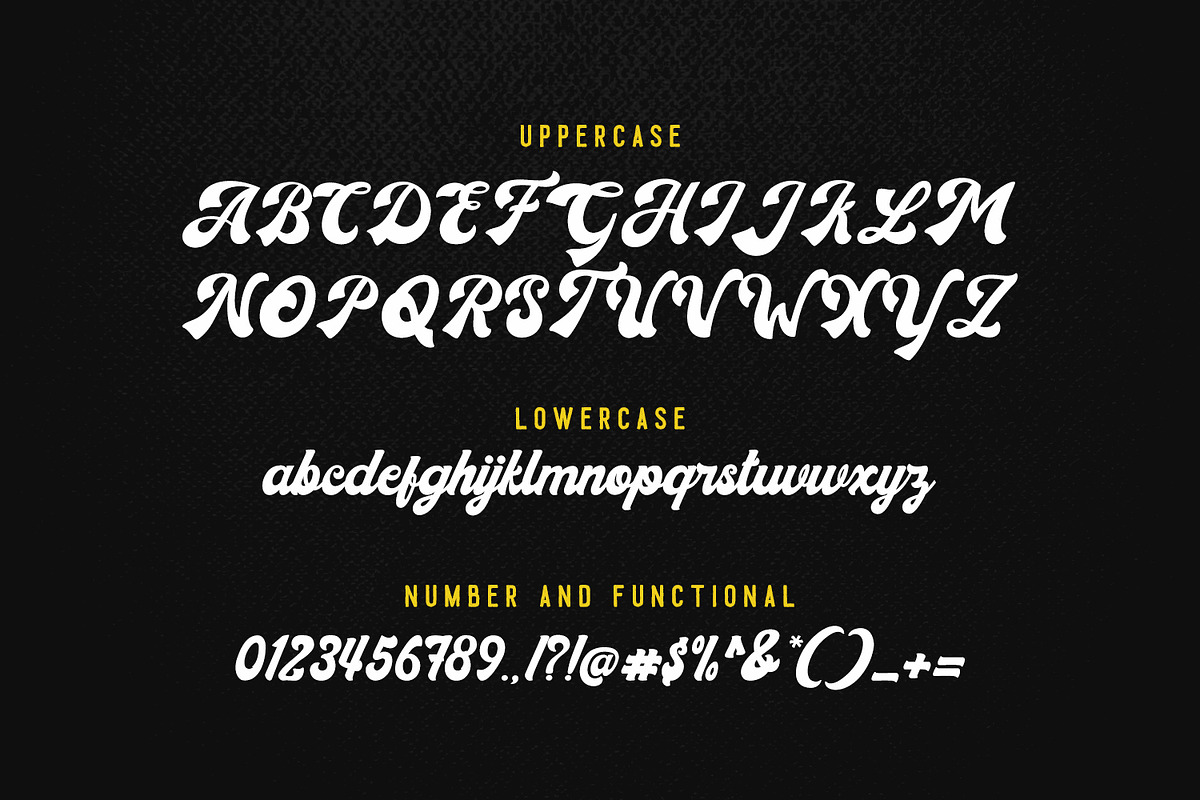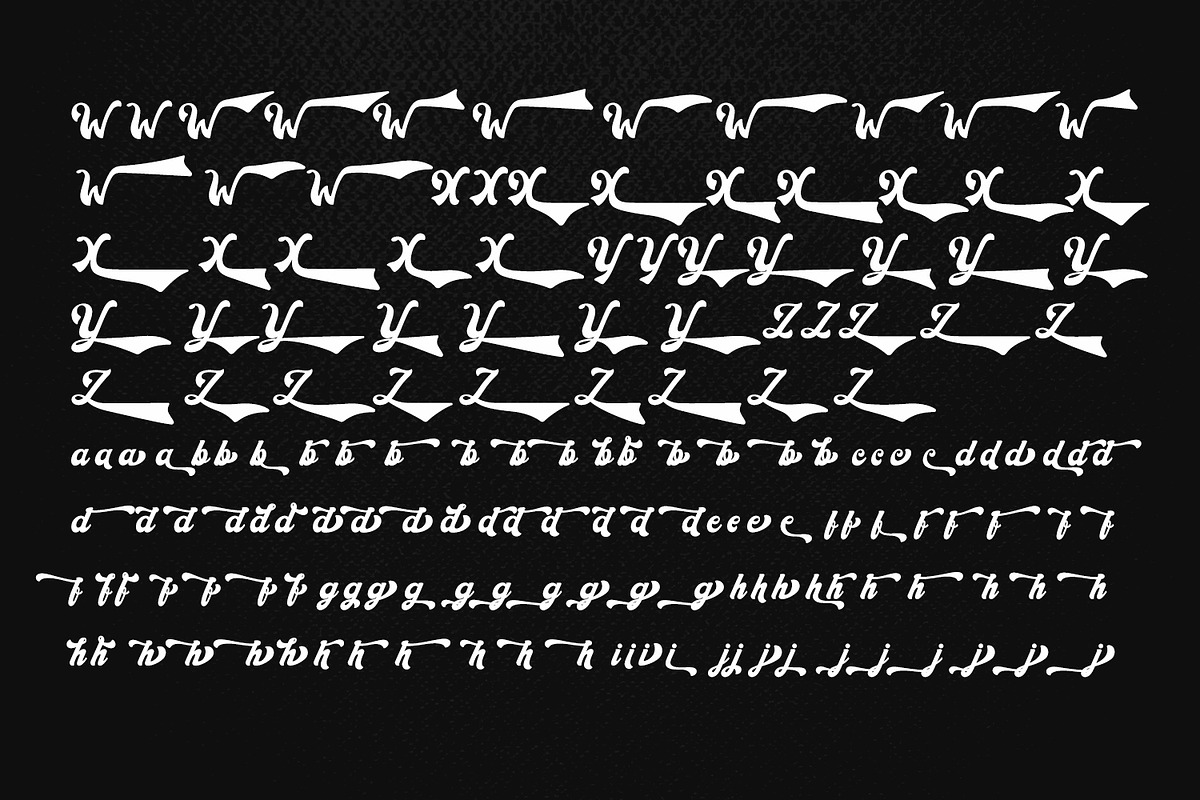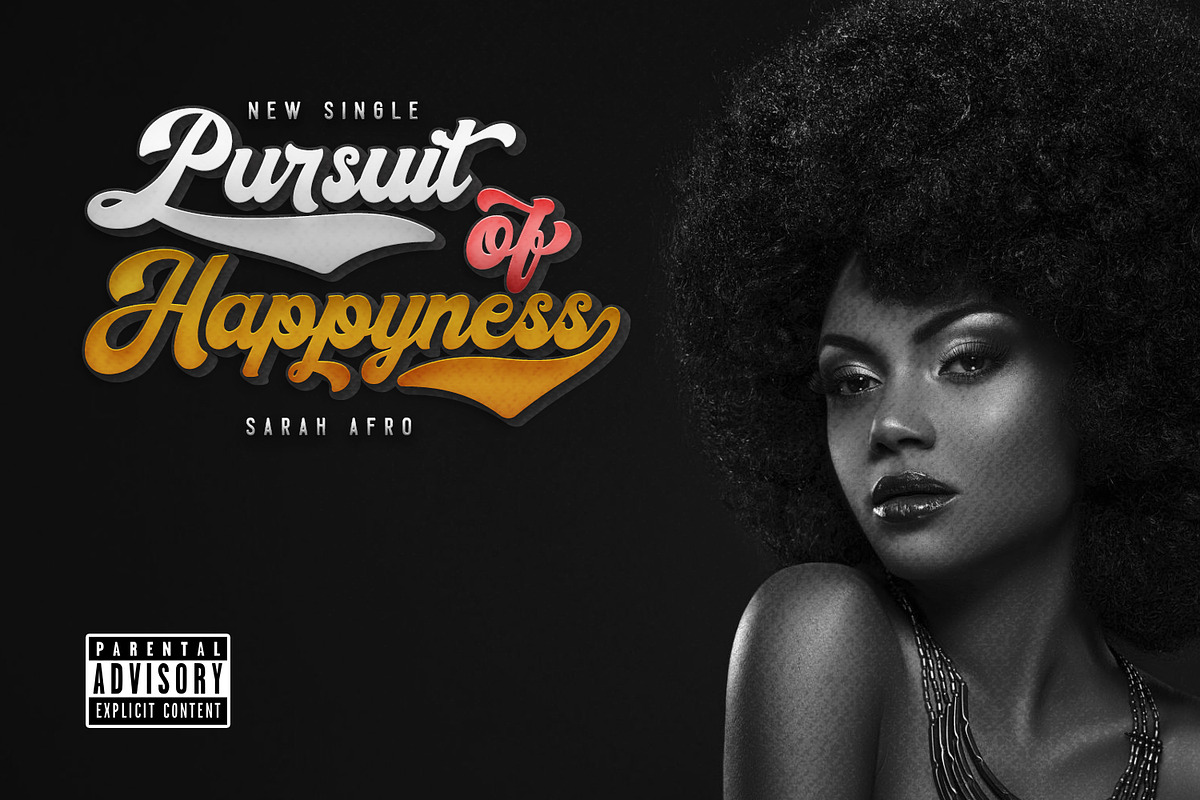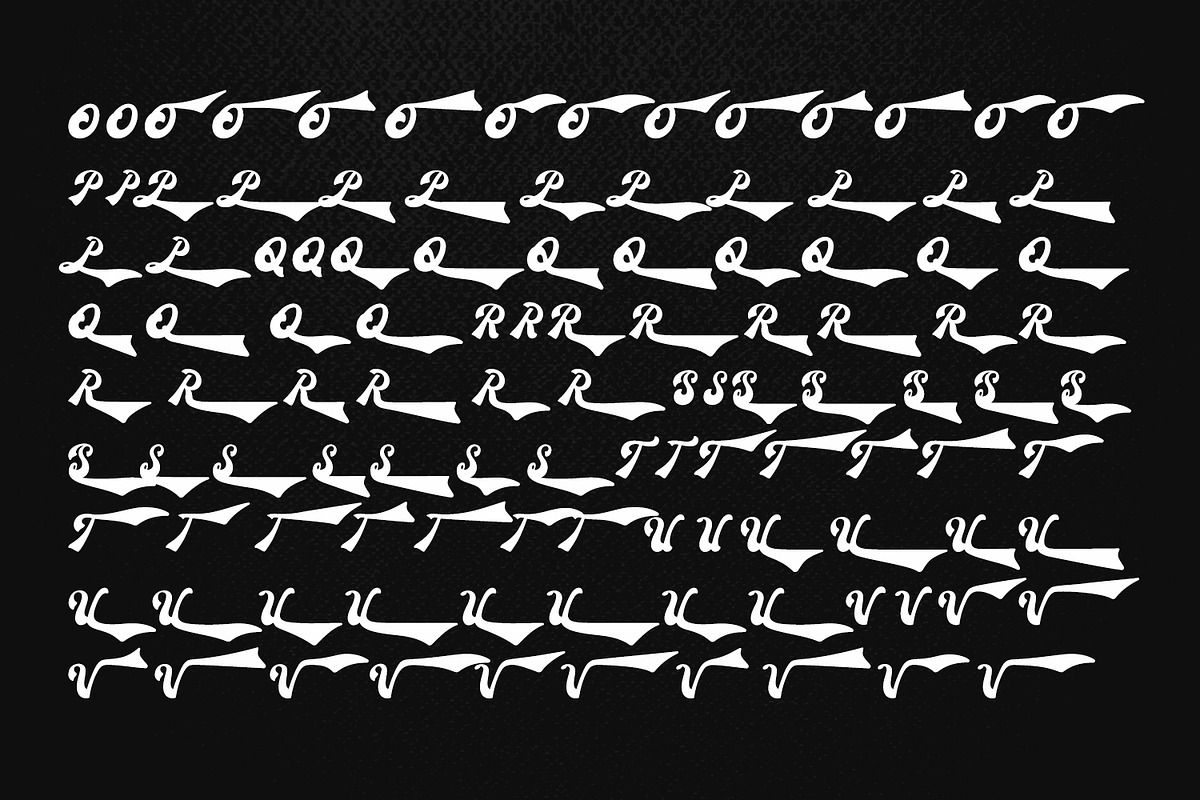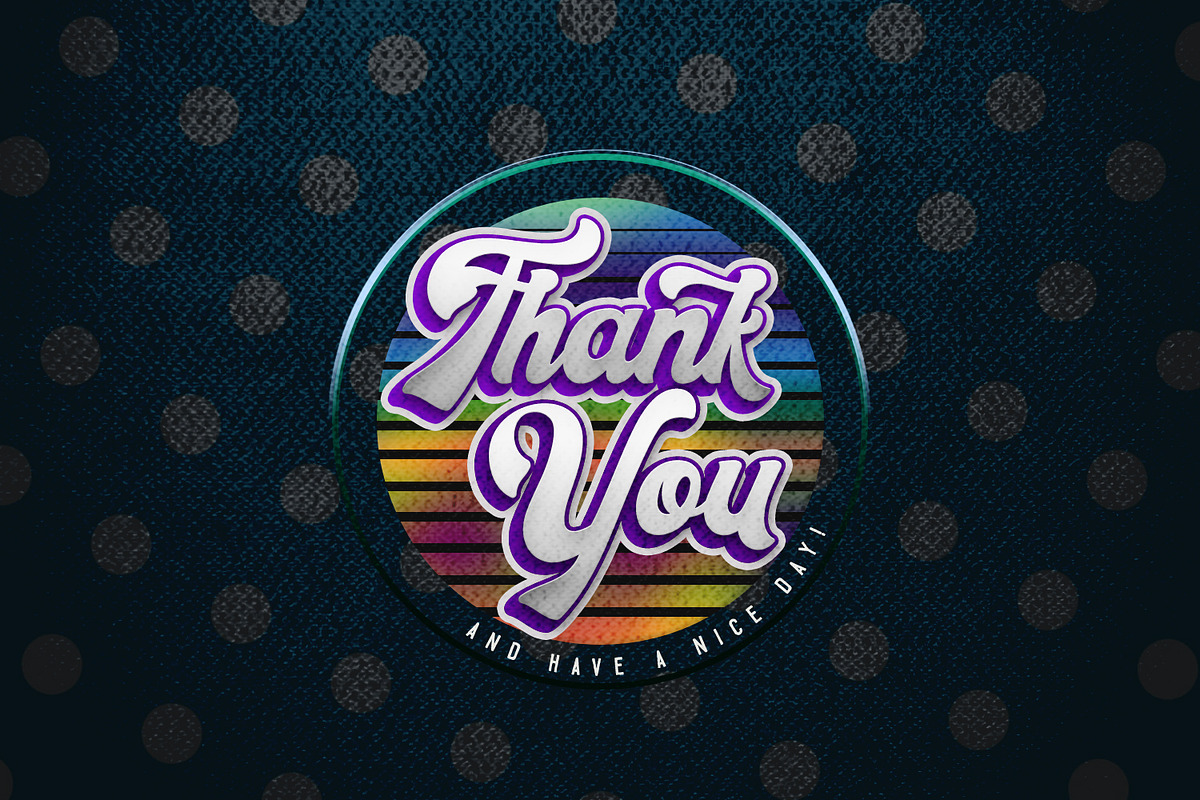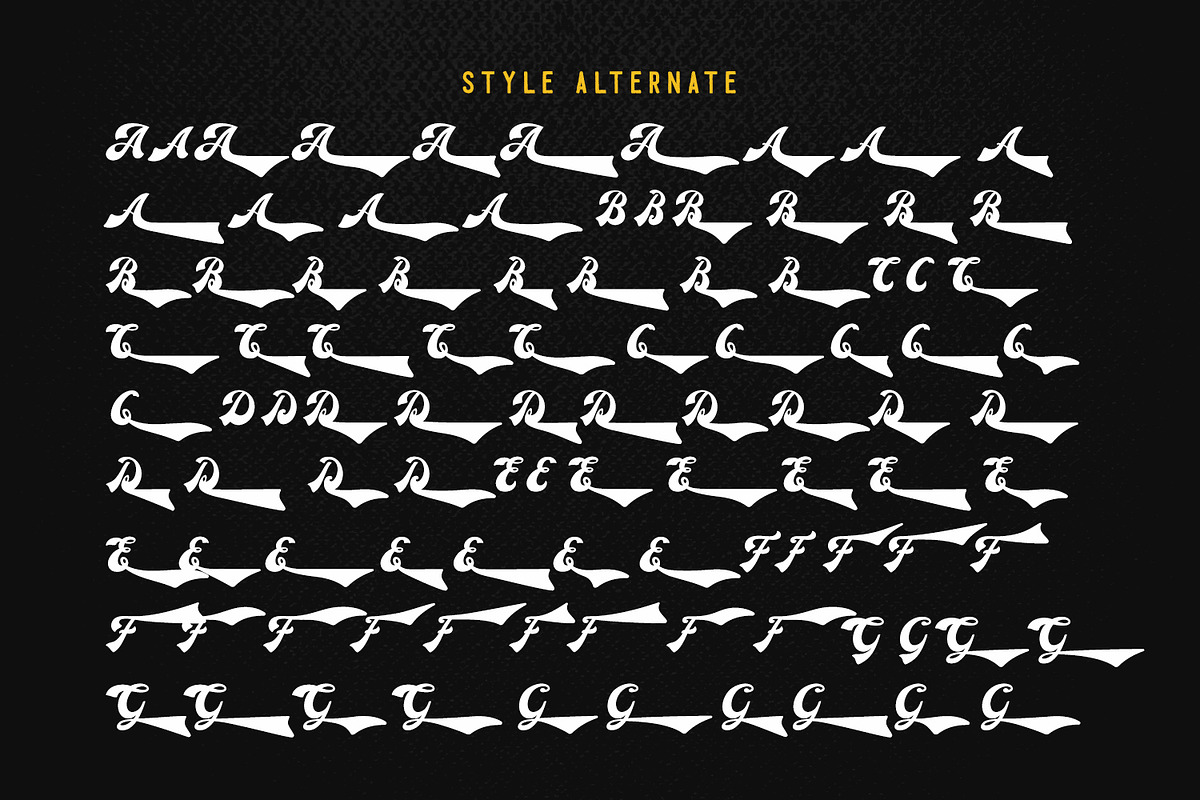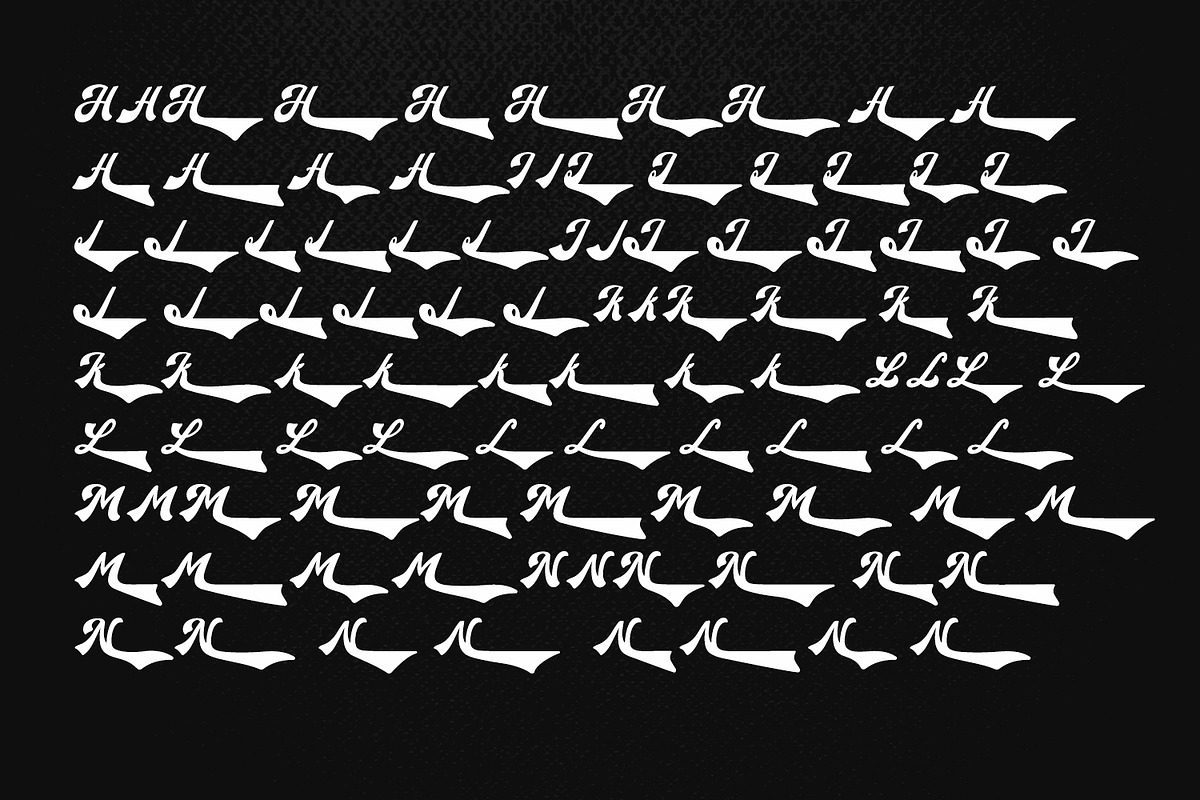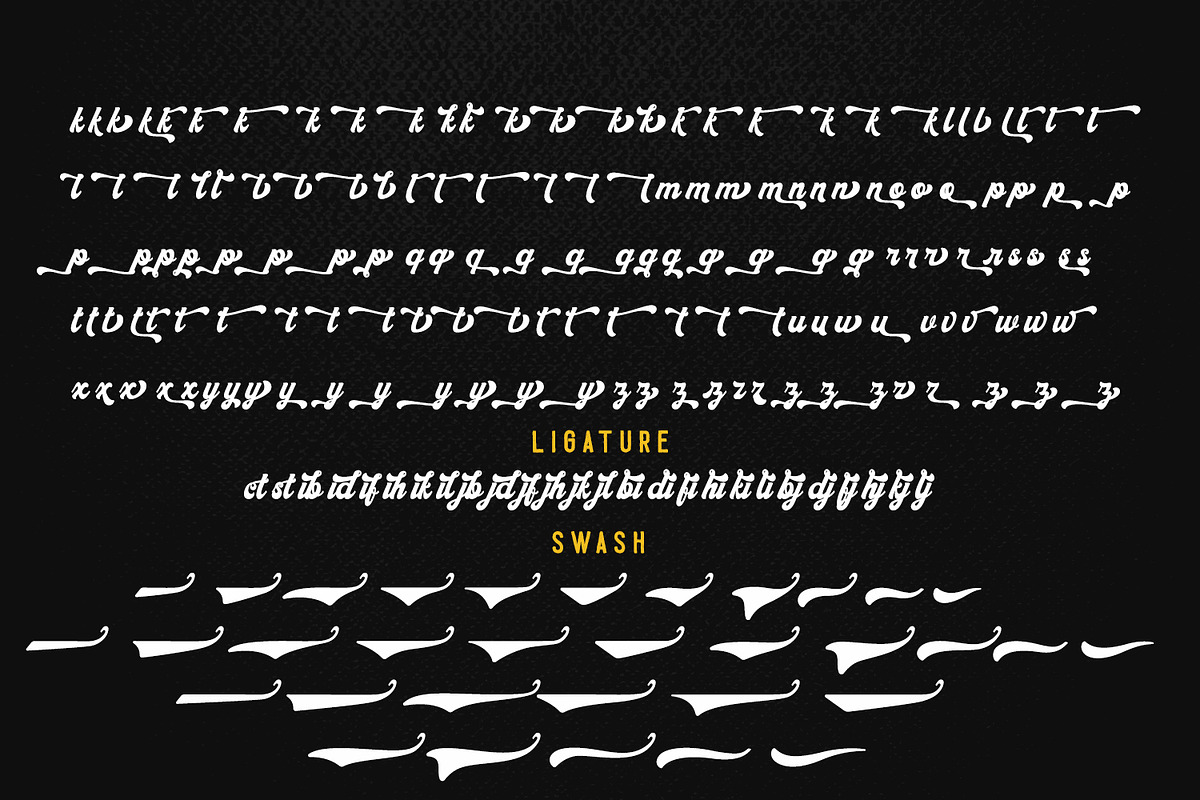
Donatello - new groovy script
Really excited to introduce Donatello Retro Script simply amazing with Regular, extrude & Shadow style so you can save much time for create design. Donatello Retro Script inspired from retro style 70's and perfect for poster design, book covers, merchandise, fashion campaigns, newsletters, branding, advertising, magazines, greeting cards, album covers, and quote designs and more.